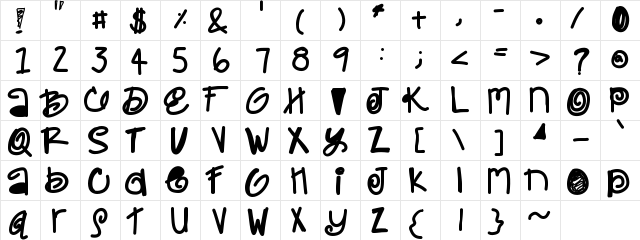
Maulie Medium
Design Context for Maulie
Maulie is a composed and adaptable typeface that performs quietly and consistently across a wide range of design contexts.